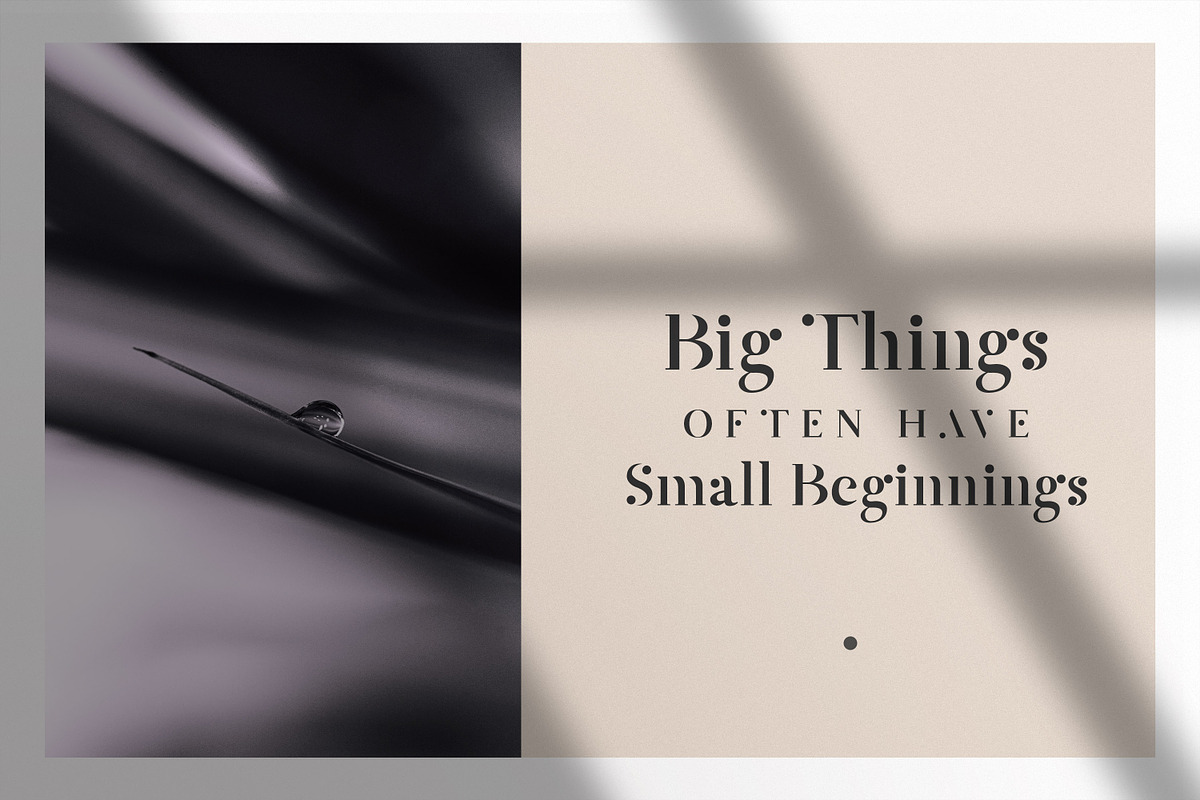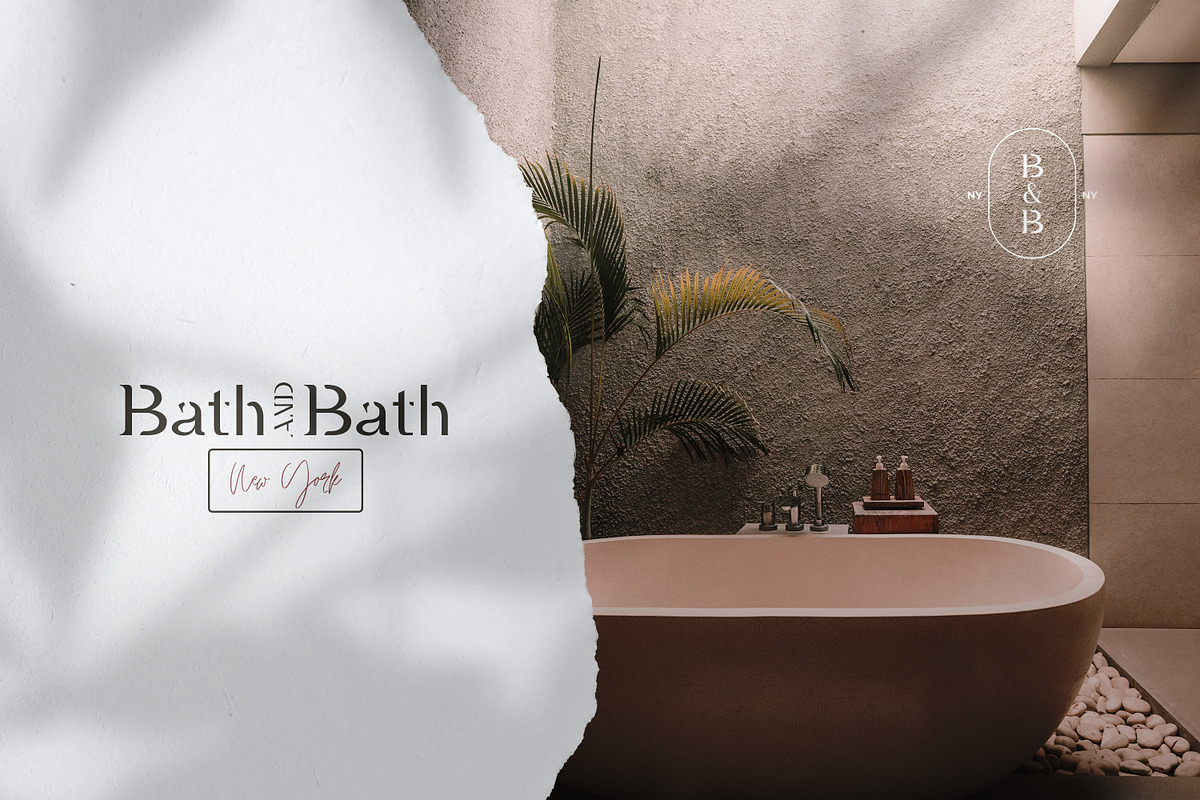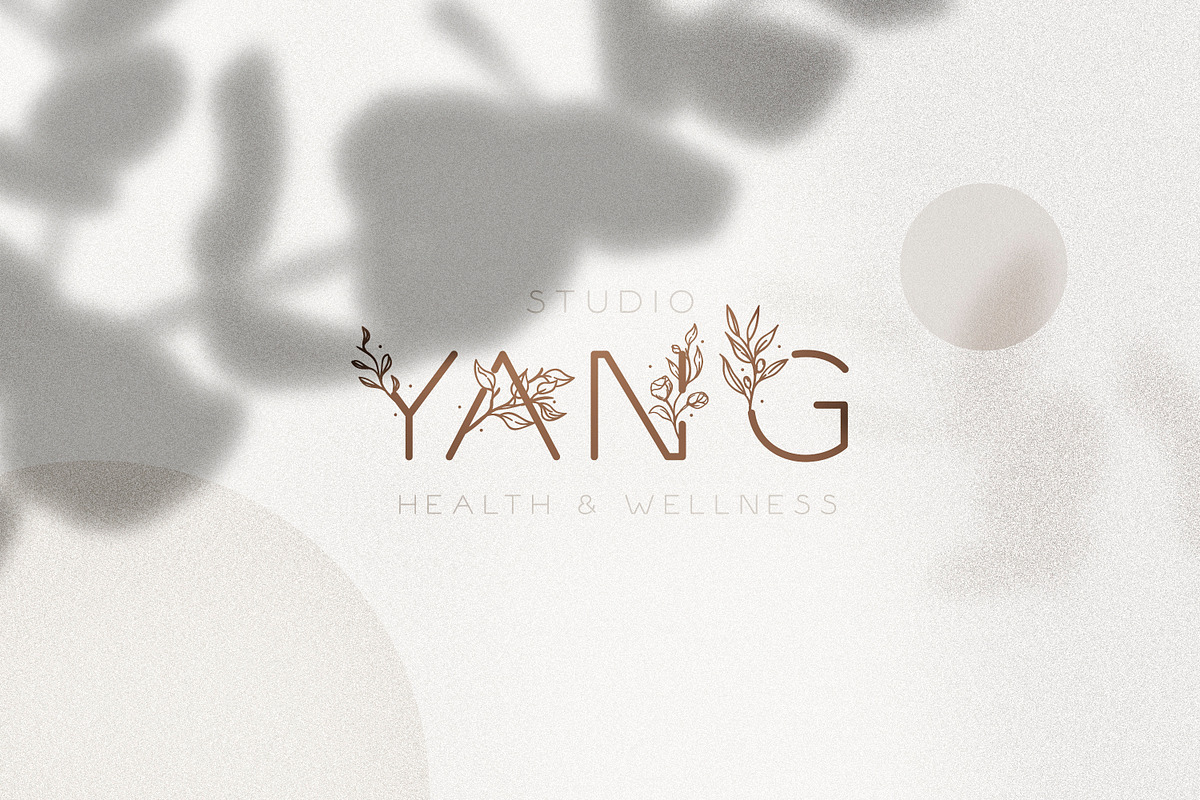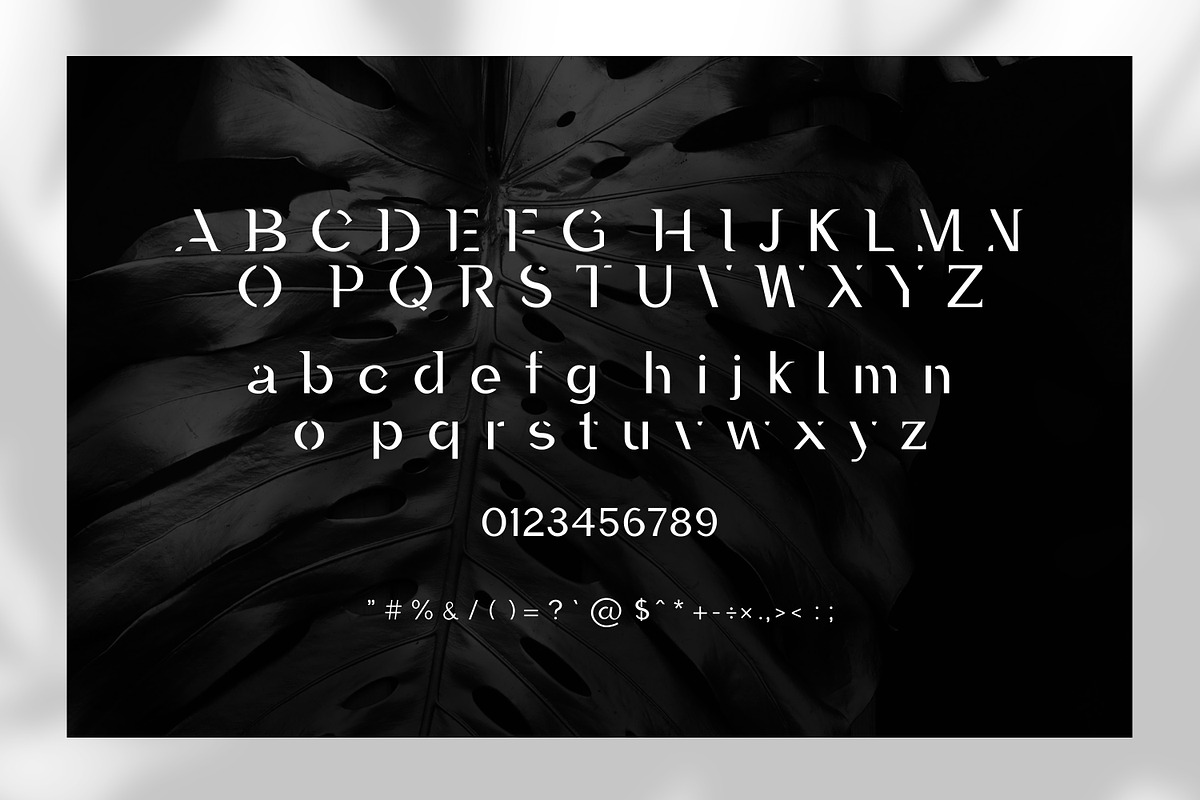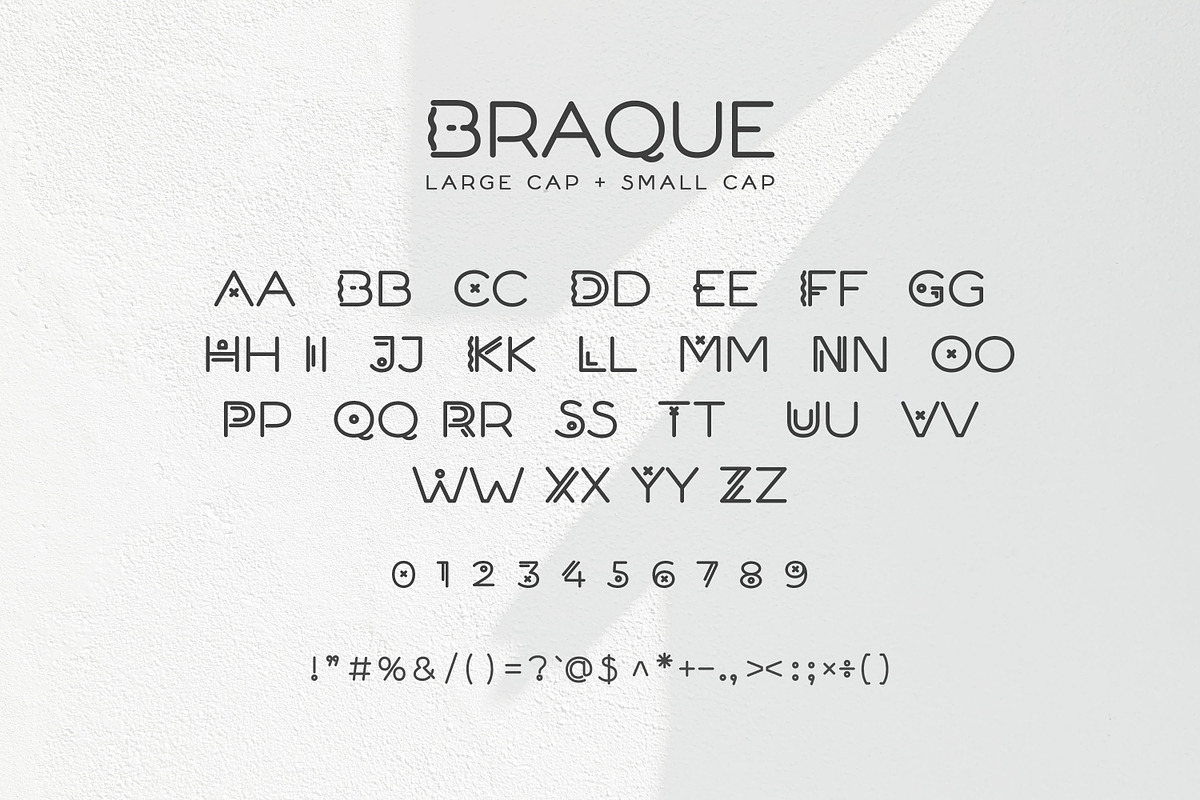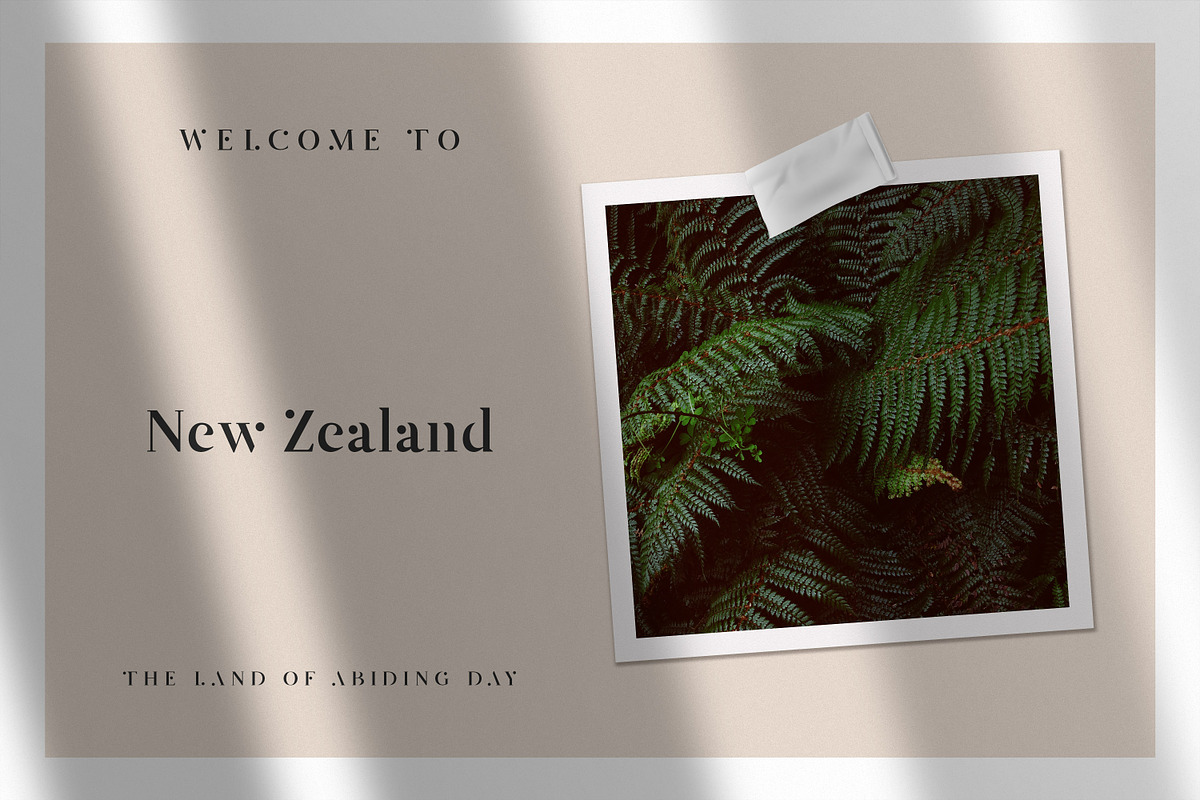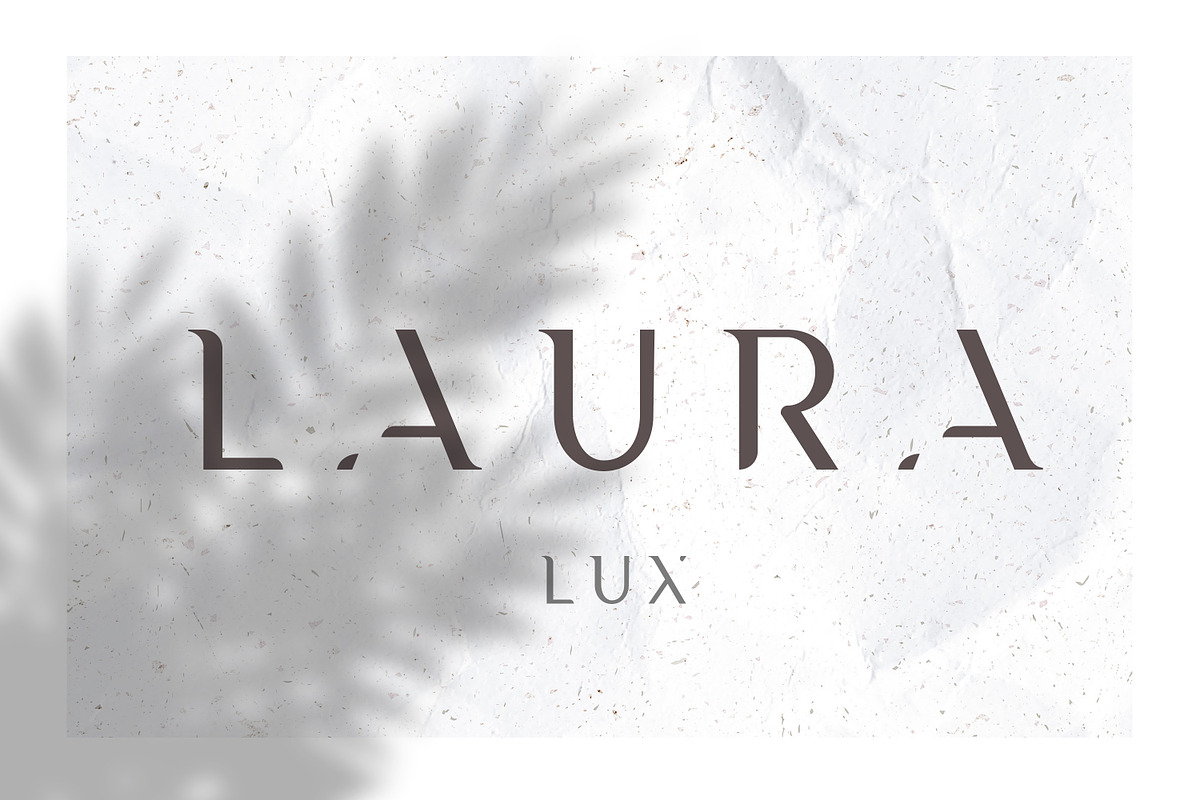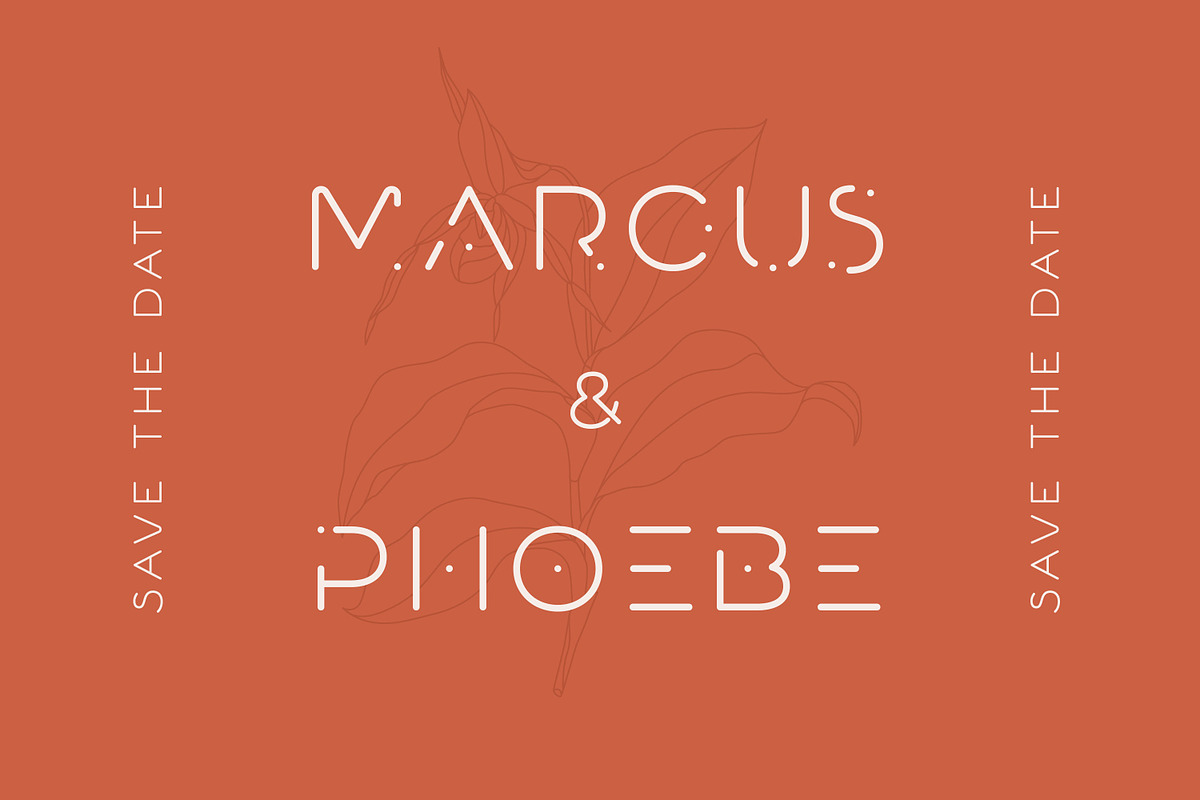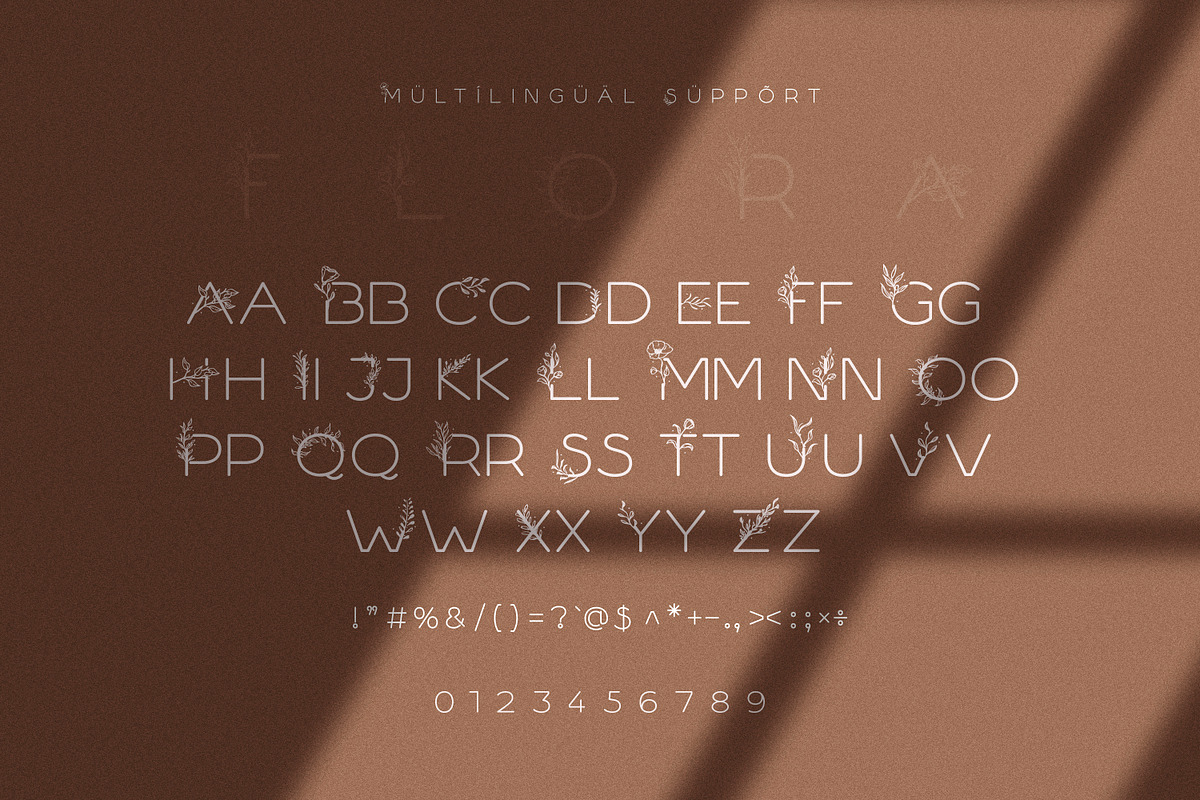
Unique Display Font Bundle
Introducing a bundle of 12 unique display fonts - from minimal and luxurious to sci-fi and mysterious - this bundle has them all!
This is a great collection if you're looking to spice up your print designs, branding project, logo or website with some unique looking typography. Most of the fonts work perfectly for titles and typographic lockups, but can also be used for copy text.
Here's the fonts that are included:
- Hazel
- Geo Font
- Braque